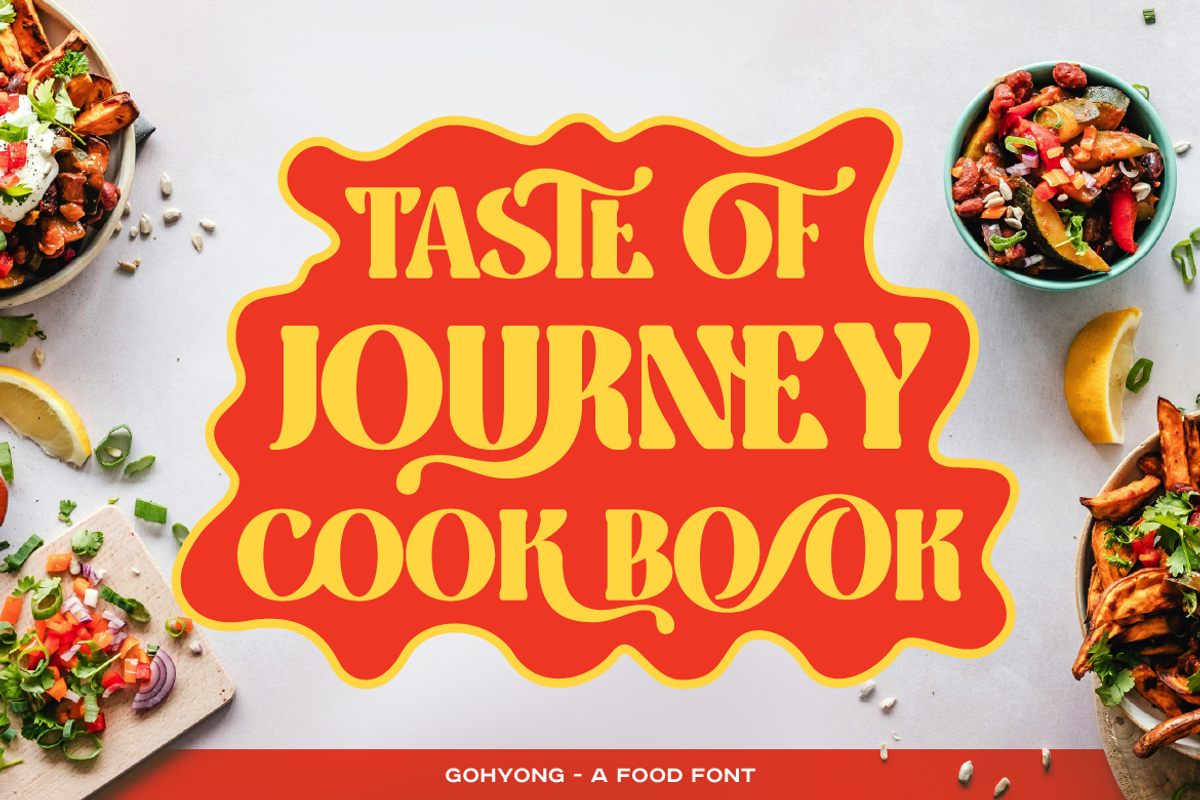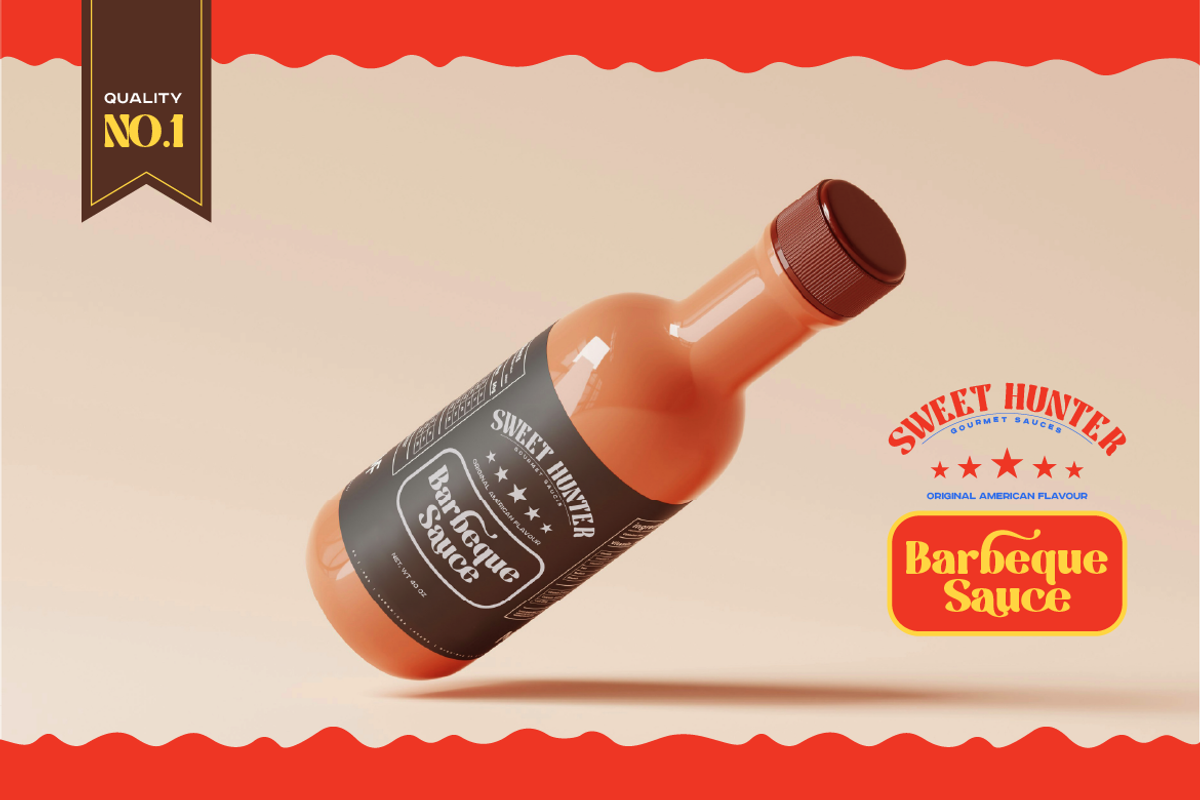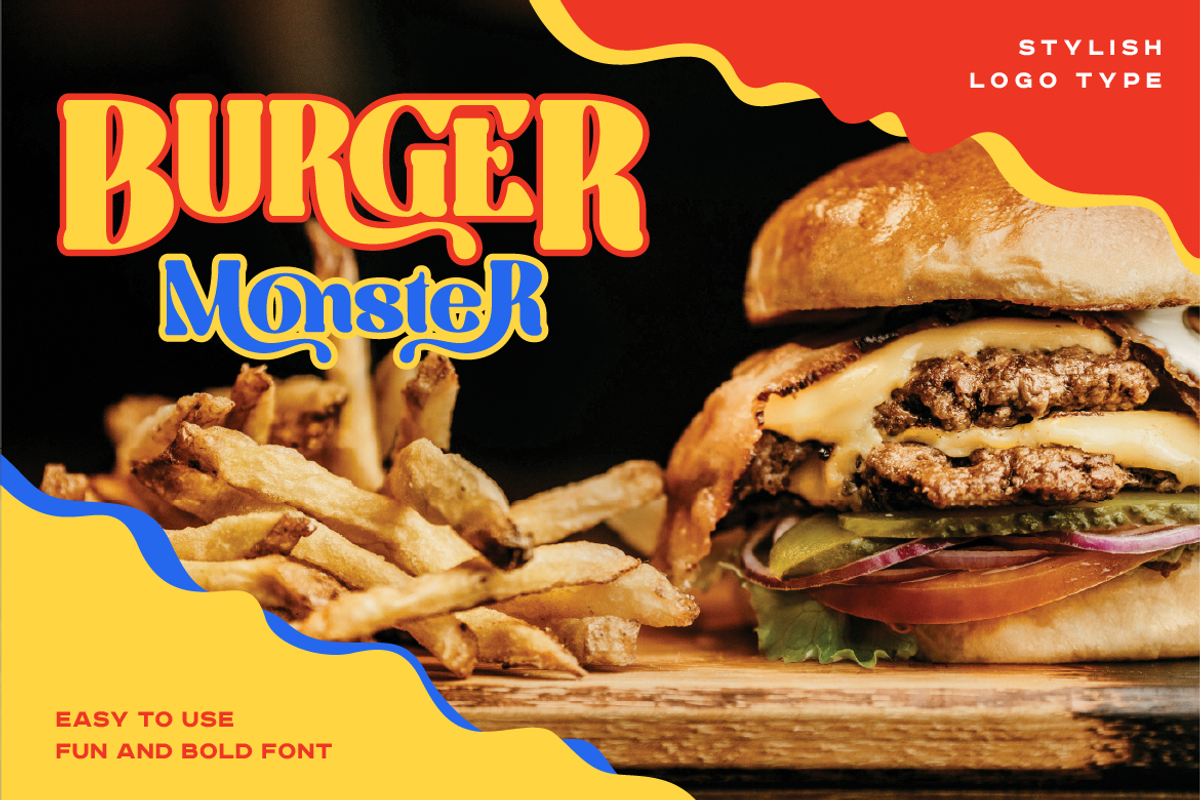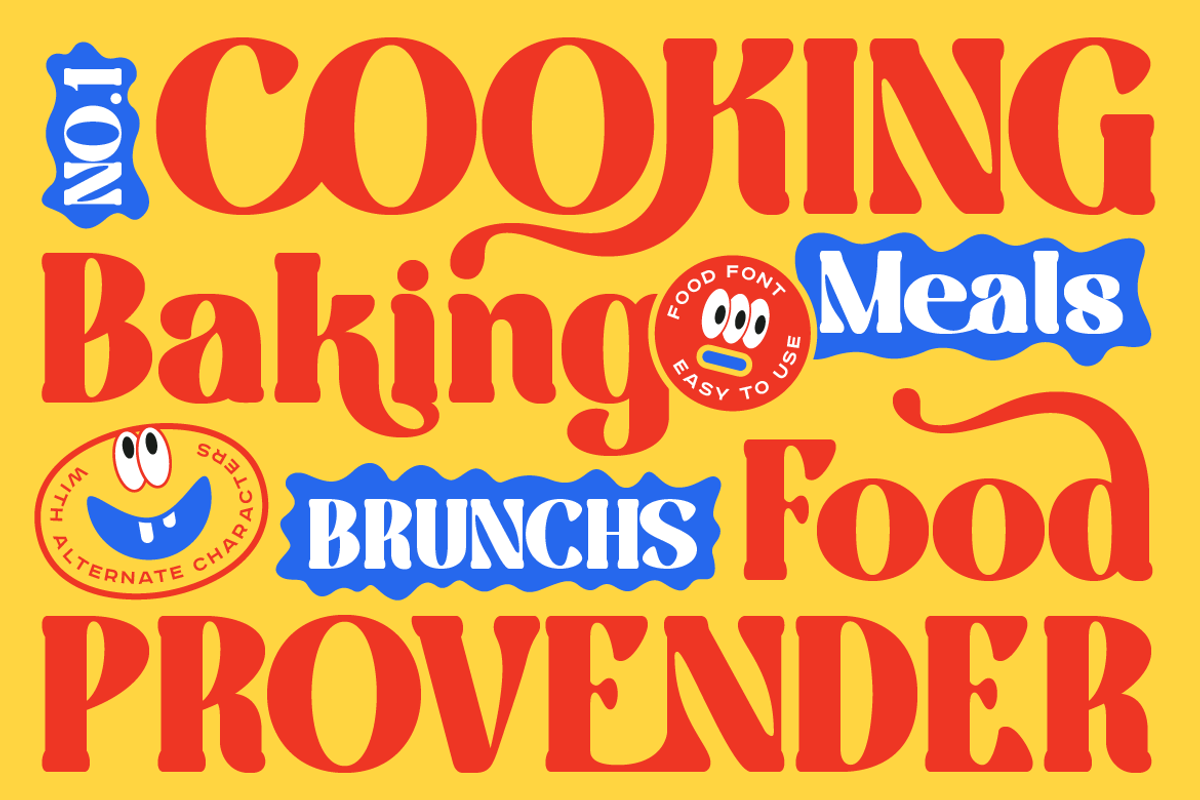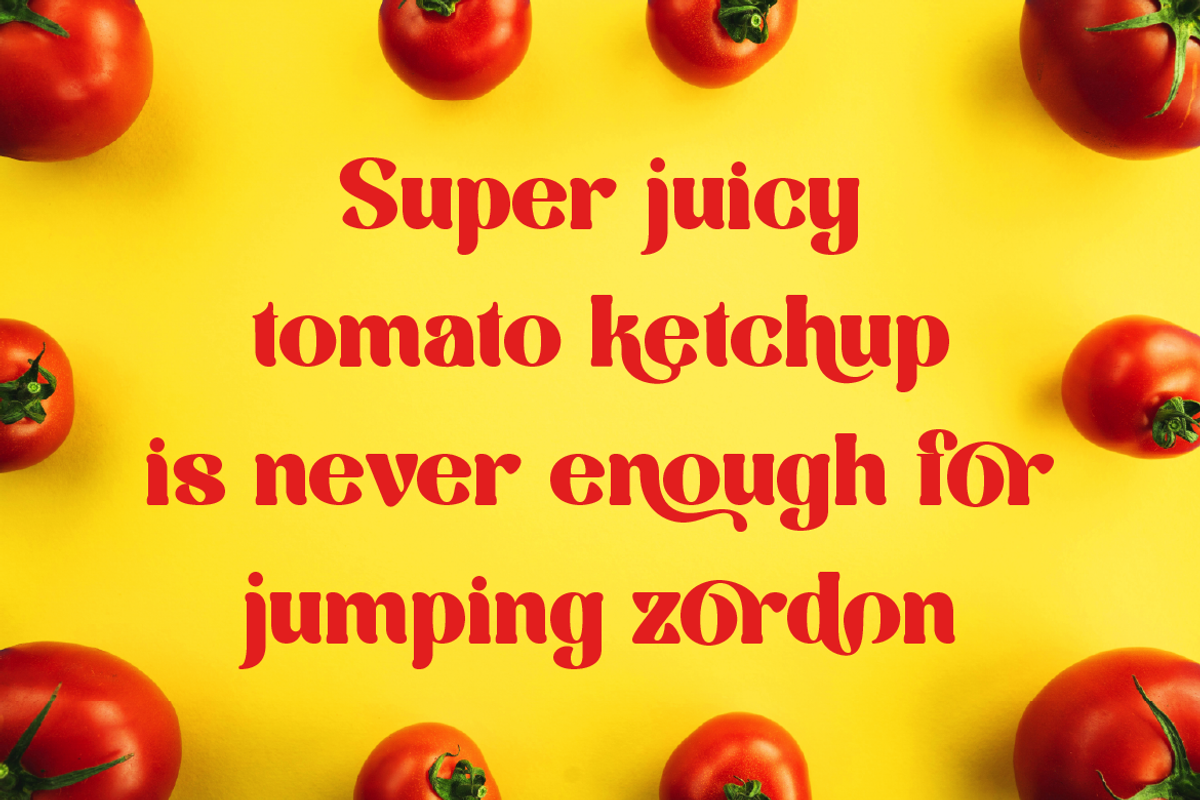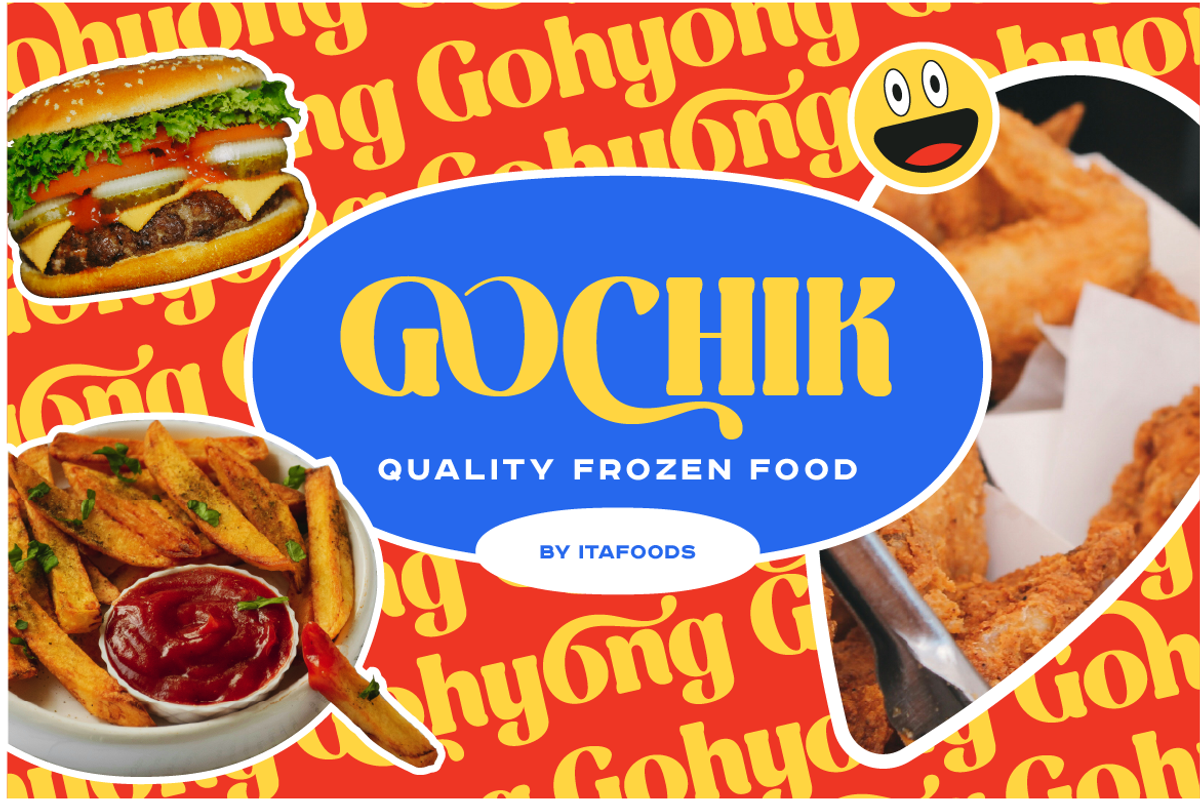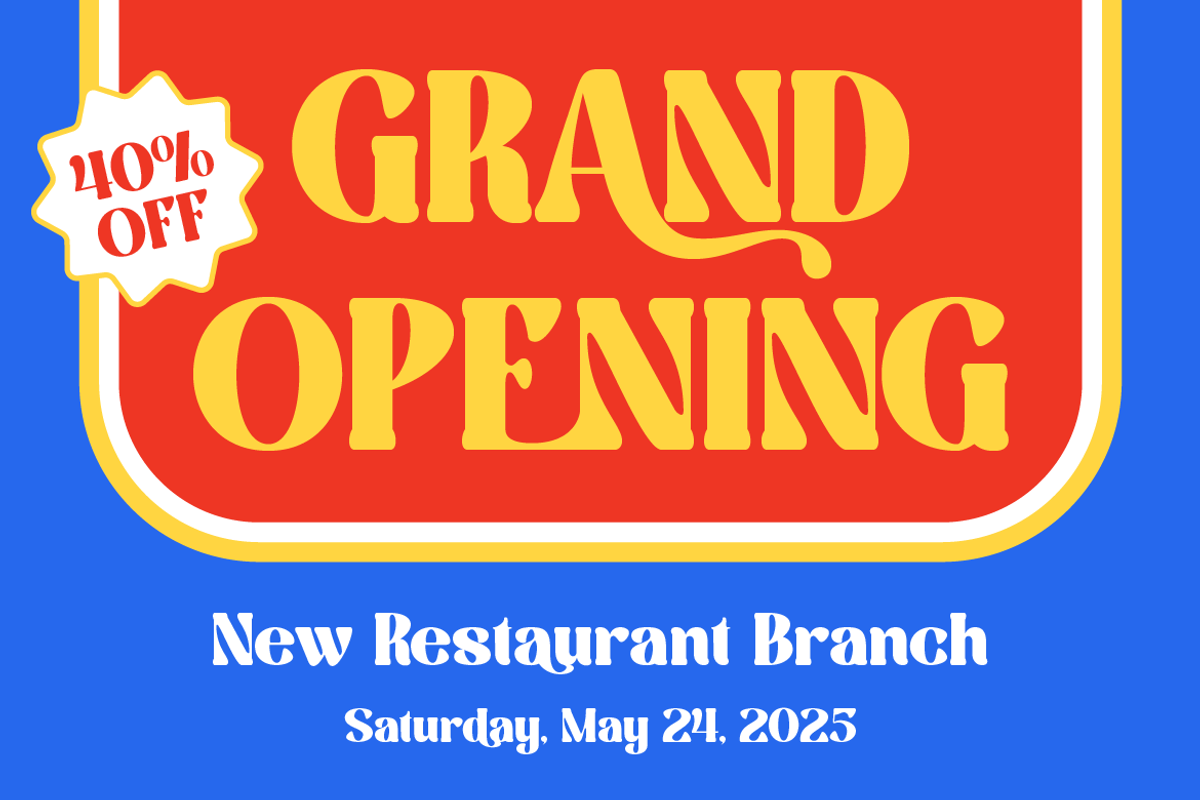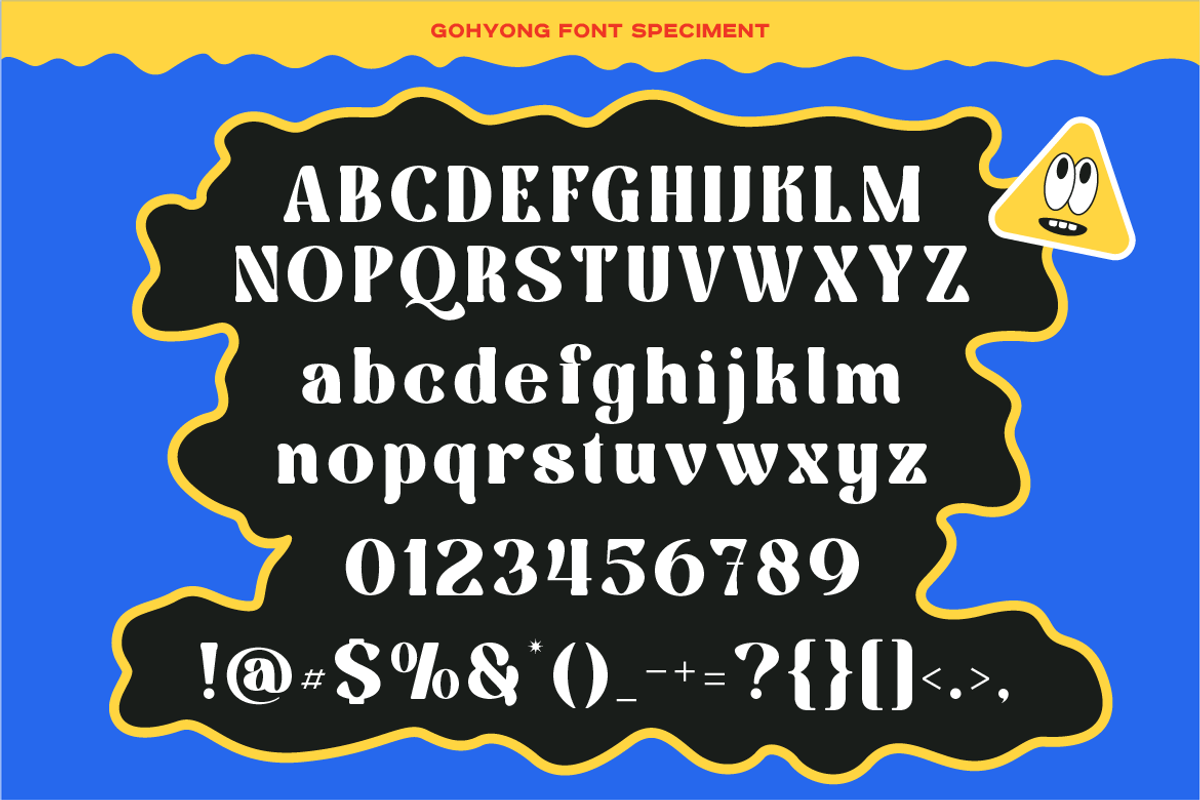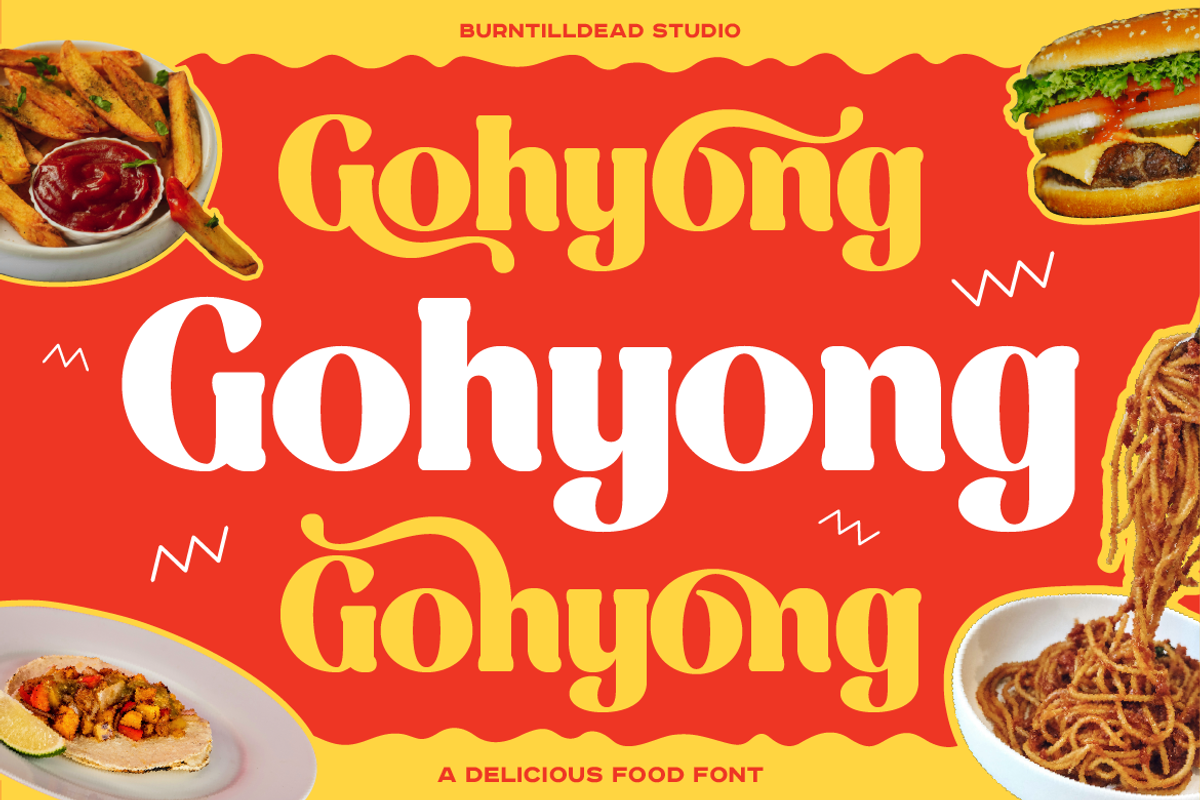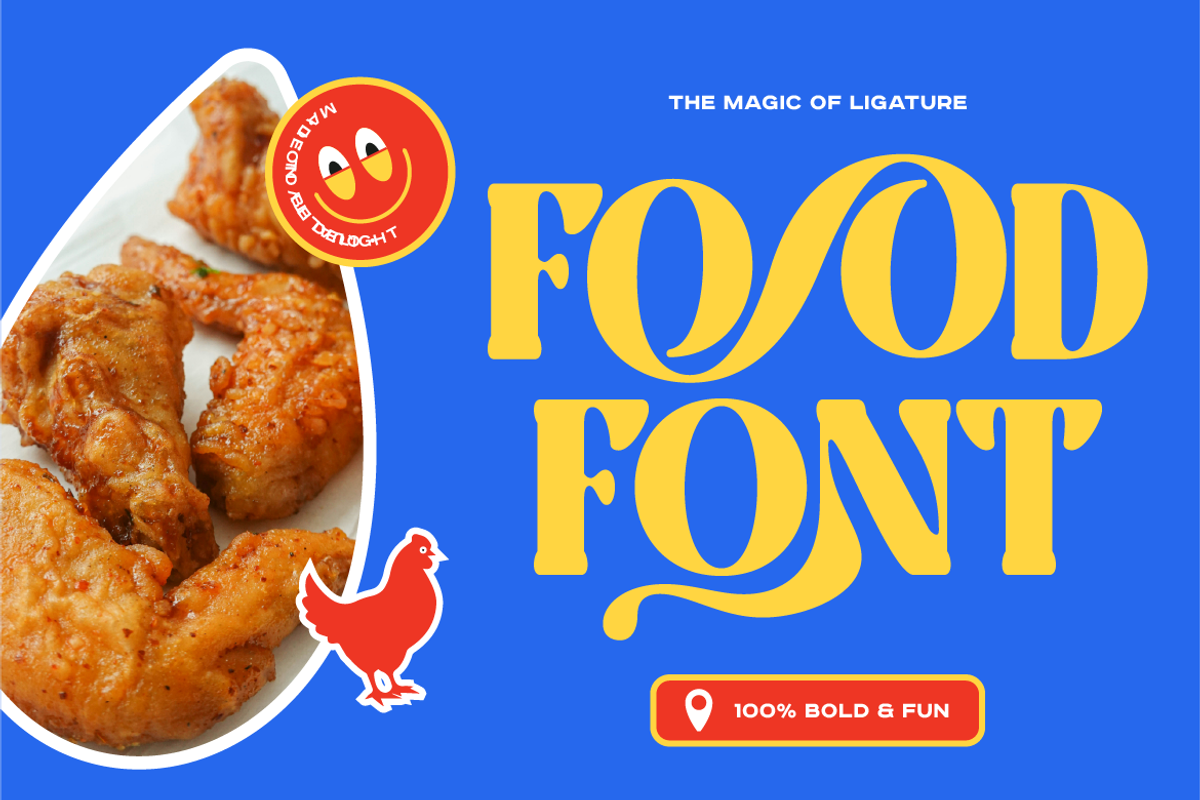
Gohyong
Meet Gohyong, a delicious food font. A fun and bold font that combines modern design with a touch of classic. Gohyong offers a clean and sophisticated look that will make your designs stand out. Gohyong is more than just a font; its a design tool that help you create with confidence and style. Also this font include with alternates, ligatures and multilingual support. This font perfect for branding, logo type, poster, banner, web design, editorial design, social media, restaurant menu design and many more.
- A - Z set (Uppercase & Lowercase)